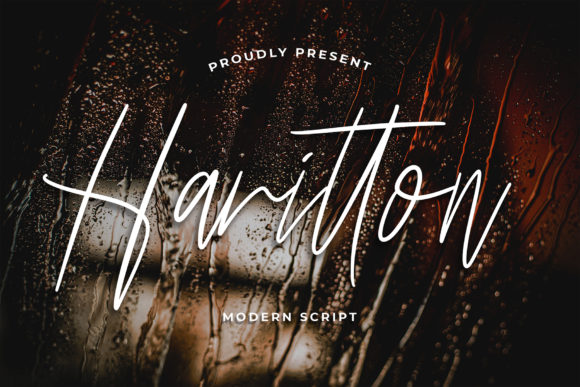
Harritton Font Review for Editorial Design
There is a specific moment in every editorial layout project when the grid feels too rigid and the content needs a breath of organic warmth. During a recent redesign for a lifestyle publication, I found myself staring at a sterile header that lacked the intimate connection our readers expect. This search for authentic typography led me to test Harritton, a unique and timeless handwritten font that immediately shifted the mood of the entire spread. As an editorial designer who values both aesthetic beauty and functional hierarchy, I approached this typeface not just as a decorative element, but as a strategic tool for guiding reader attention. In the crowded space of digital publishing and print media, finding Script Handwritten Fonts that balance artistic flair with professional legibility is rare, yet this typeface manages to anchor a layout without overwhelming the accompanying body copy.
Harritton for Wedding Invitations and Elegant Stationery Art
When evaluating Harritton for high-stakes projects like wedding invitations or premium stationery art, the primary concern is always the balance between romance and readability. This script handwritten typeface excels here because its letterforms possess a natural rhythm that mimics genuine penmanship rather than digital perfection. In my testing with a bridal guide layout, the font provided the necessary emotional resonance for cover titles and section openers without sacrificing clarity. The strokes are confident yet fluid, creating a sense of luxury that is essential for wedding branding. Unlike many display fonts that become illegible at smaller sizes, Harritton maintains its structural integrity when scaled down for RSVP cards or envelope addressing. For designers creating beautiful stationary art, the versatility of this font allows it to serve as the primary voice of the brand identity, bridging the gap between traditional calligraphy and modern typographic standards.
Using Harritton for Eye-Catching Social Media Graphics
Social media graphics demand instant recognition, and Harritton serves as a powerful hook for scrolling audiences on platforms like Instagram and Pinterest. When integrating this creative font into social templates, I noticed that its distinctive character shapes create natural focal points that stop the scroll more effectively than standard sans serif headlines. The key to using this typeface in digital marketing assets is restraint; it functions best as a singular accent word or short phrase layered over clean photography or solid color blocks. Because social media feeds are visually noisy, the refined nature of Harritton cuts through the clutter without adding to the visual chaos. It pairs exceptionally well with minimalist sans serif fonts for secondary information, allowing the handwritten elements to carry the emotional weight while the supporting text handles the logistical details. This strategic contrast ensures that your social media graphics remain accessible and readable even on mobile screens where pixel density can sometimes degrade intricate script details.
Harritton Typography Pairings for Blog Headers and Newsletters
Successful editorial design relies heavily on effective font pairing, and Harritton proves to be a remarkably cooperative partner when matched with structured typefaces. For blog headers and newsletter designs, I recommend anchoring this expressive script with a high-x-height serif font for body copy or a geometric sans serif for navigation and captions. During a newsletter header test, combining Harritton with a classic transitional serif created a sophisticated tension that felt both curated and welcoming. The handwritten quality of the display font softens the formality of the editorial grid, making long-form content feel less intimidating to the reader. However, it is crucial to avoid pairing Harritton with other decorative or script fonts, as competing personalities will destroy the visual hierarchy. Instead, let this typeface stand alone as the primary display element, using neutral, highly legible fonts to handle the heavy lifting of information delivery. This approach preserves the unique charm of the script while ensuring the overall publication remains professional and easy to navigate.
Readability Considerations for Digital Magazines and Print Layouts
While Harritton is undeniably gorgeous, understanding its limitations is just as important as appreciating its strengths in digital magazines and print layouts. This typeface is strictly a display font and should never be used for body copy, dense paragraphs, or critical instructional text. In my experience laying out feature articles, attempting to use any script handwritten style for extended reading leads to significant eye strain and reduced comprehension. Reserve Harritton for titles, pull quotes, drop caps, and decorative accents where the reader’s eye can rest and appreciate the form. For print materials, always test the ink spread and paper texture; highly absorbent papers can cause the delicate connecting strokes to bleed, potentially closing up counters and reducing legibility. Conversely, on high-resolution screens, ensure you are using the OTF version to access ligatures and alternates that prevent awkward spacing issues. By respecting these boundaries, you protect the user experience while still leveraging the font’s ability to elevate the perceived value of your content.